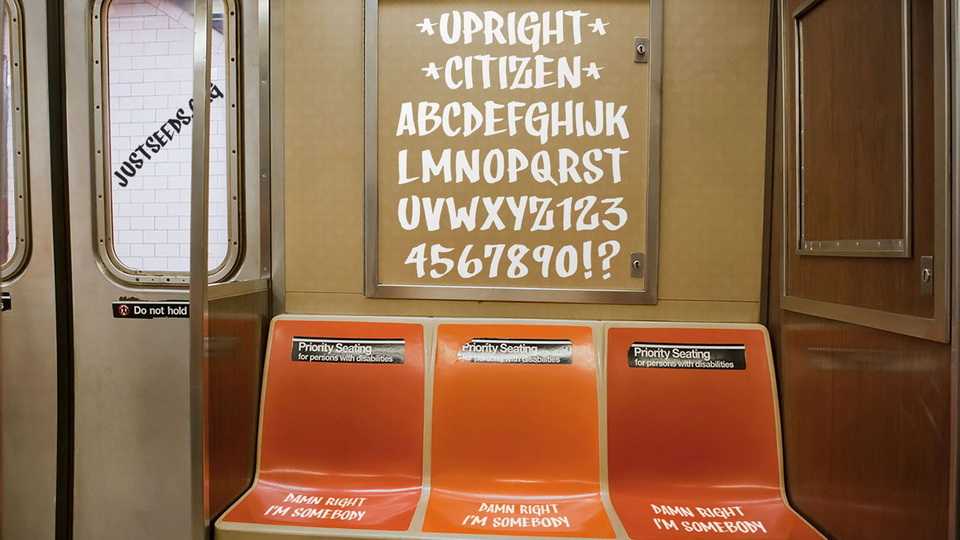
Download Upright Citizen font, a lightly condensed hand drawn script that exudes a relaxed and effortless vibe. The font features smooth, flowing strokes and gentle curves that mimic the natural movement of hand lettering.
Designer: Justseeds Open Type Project